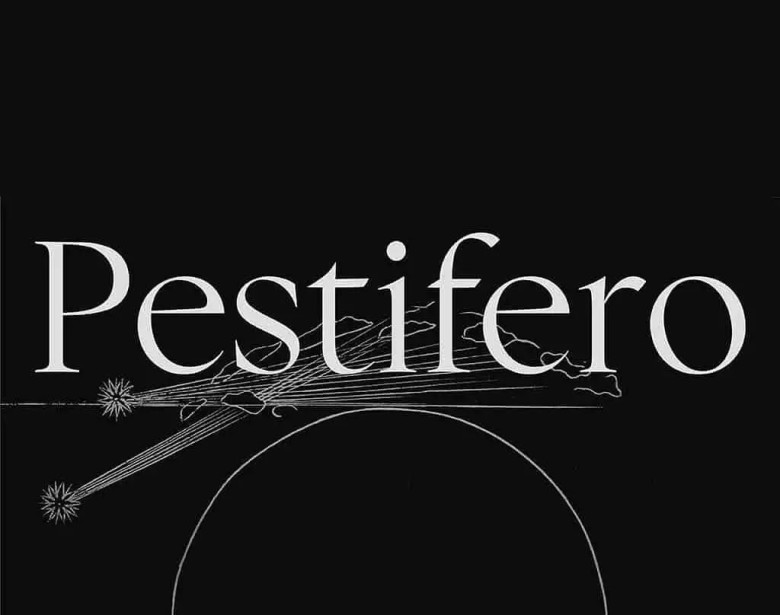
Pestifero Font
Pestifero is a contemporary humanist serif typeface. Inspired by the nostalgic search for beauty in a post-pandemic world, Pestifero’s aesthetics link different times in history that were afflicted with similar troubles. The idea started from a book, Informatione del pestifero et contagioso morbo printed in 1576, and the shapes are also influenced by the Renaissance works of different masters.
Pestifero is not a historical documentation of type, but a contemporary font that freely follows the aesthetic values of classical typography, produced under a modern-day gaze.
Pestifero Serif Typeface